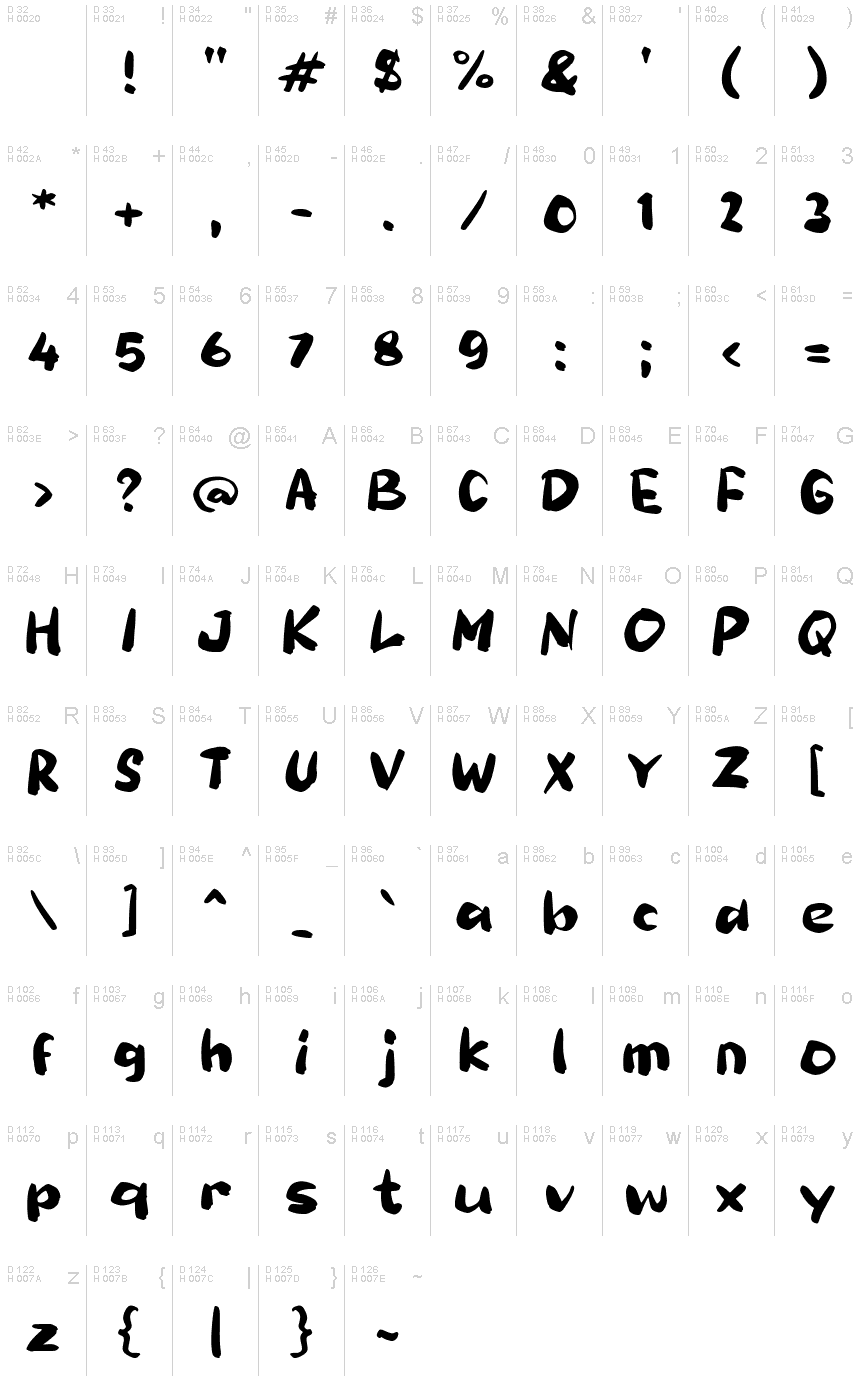
Farso
Farso, a captivating brush font designed by wep, brings a touch of boldness to your projects.
Its extra-bold weight adds emphasis and makes a statement, making it perfect for titles and headlines that demand attention. With its distinctive brush style, Farso exudes creativity and uniqueness. Whether you're designing eye-catching posters, stylish packaging, or stunning logos for fashion brands or artistic endeavors, this font will elevate your work to new heights.
Embrace the power of Farso and let its expressive strokes breathe life into your designs.